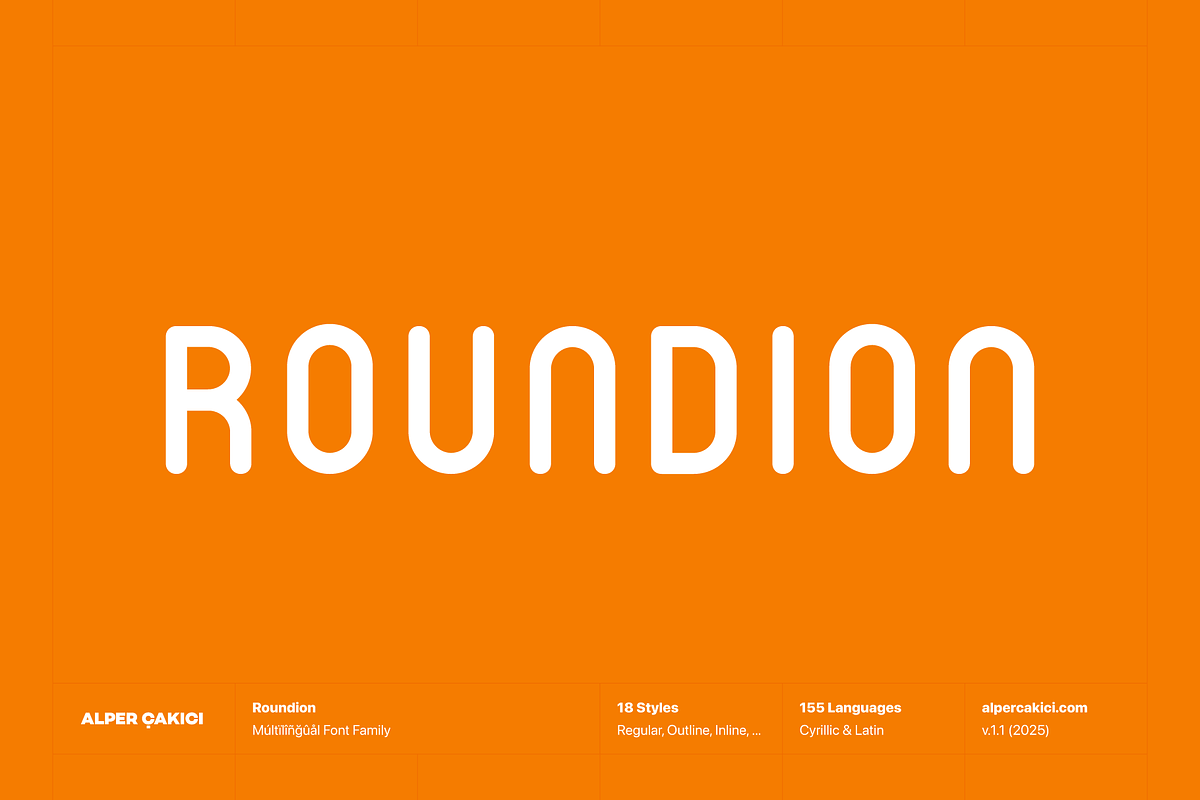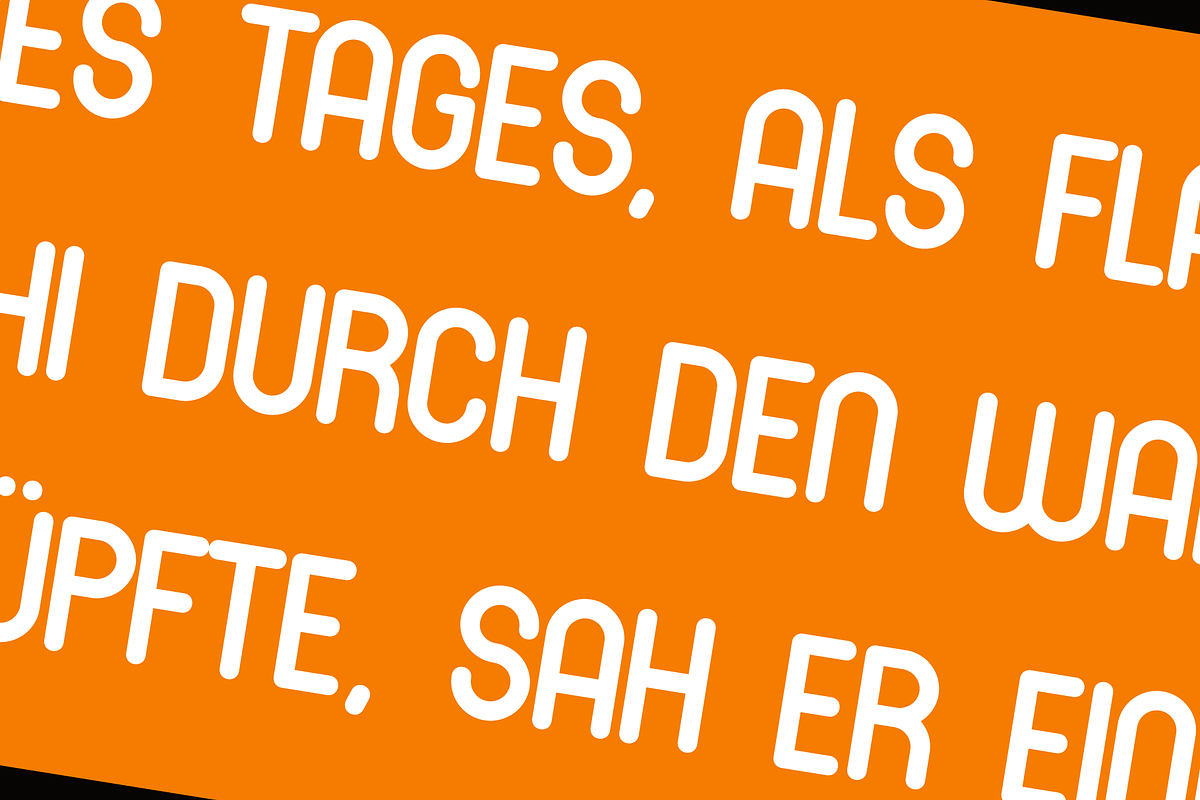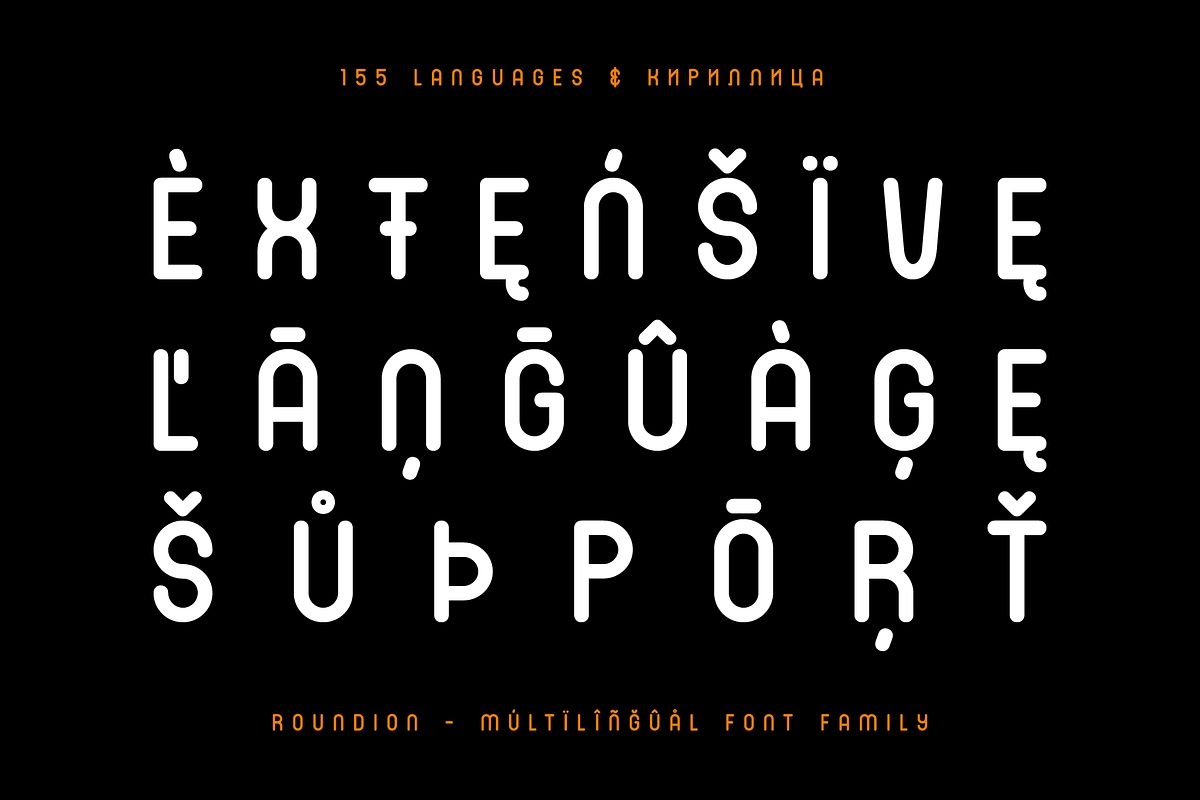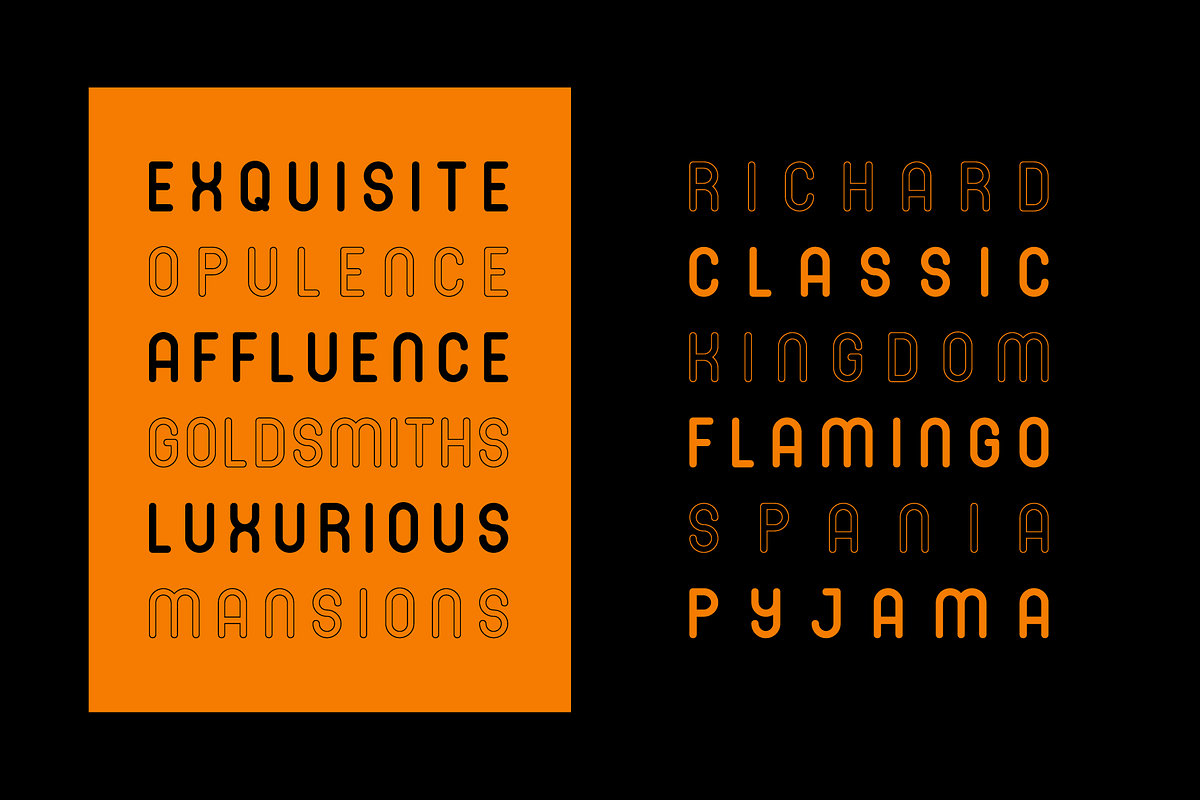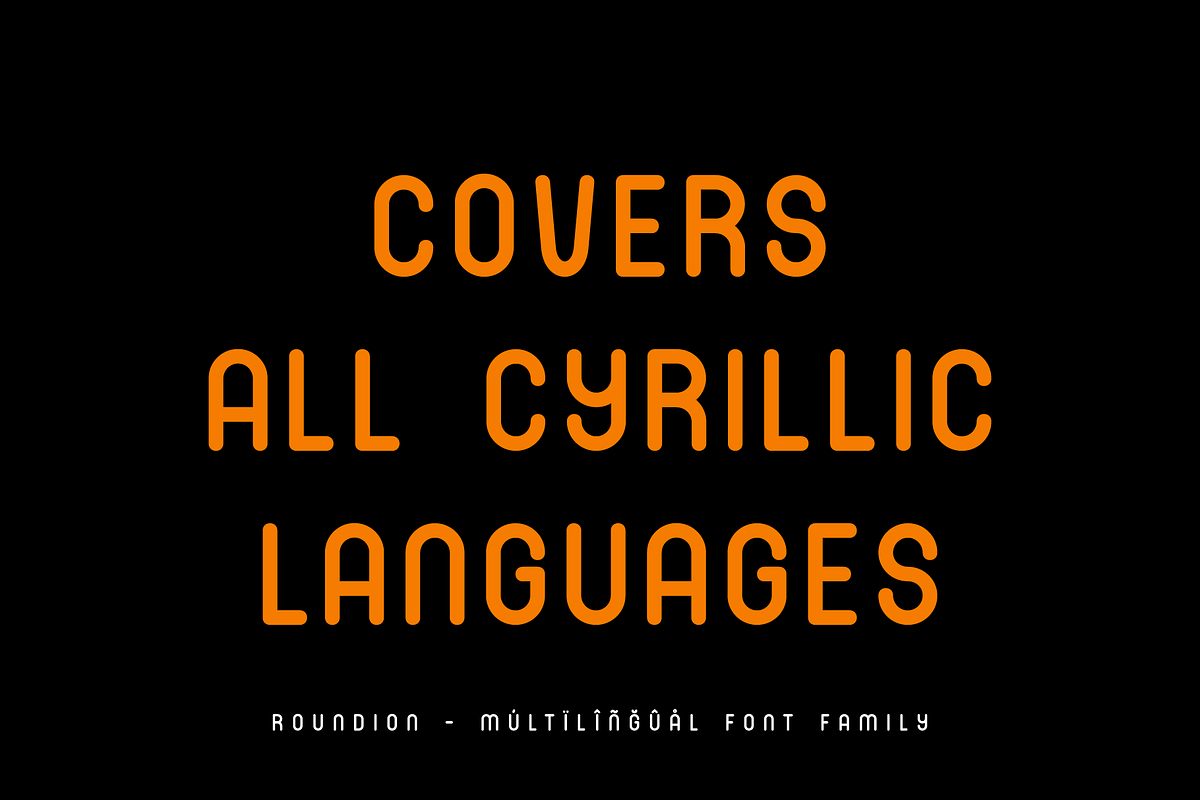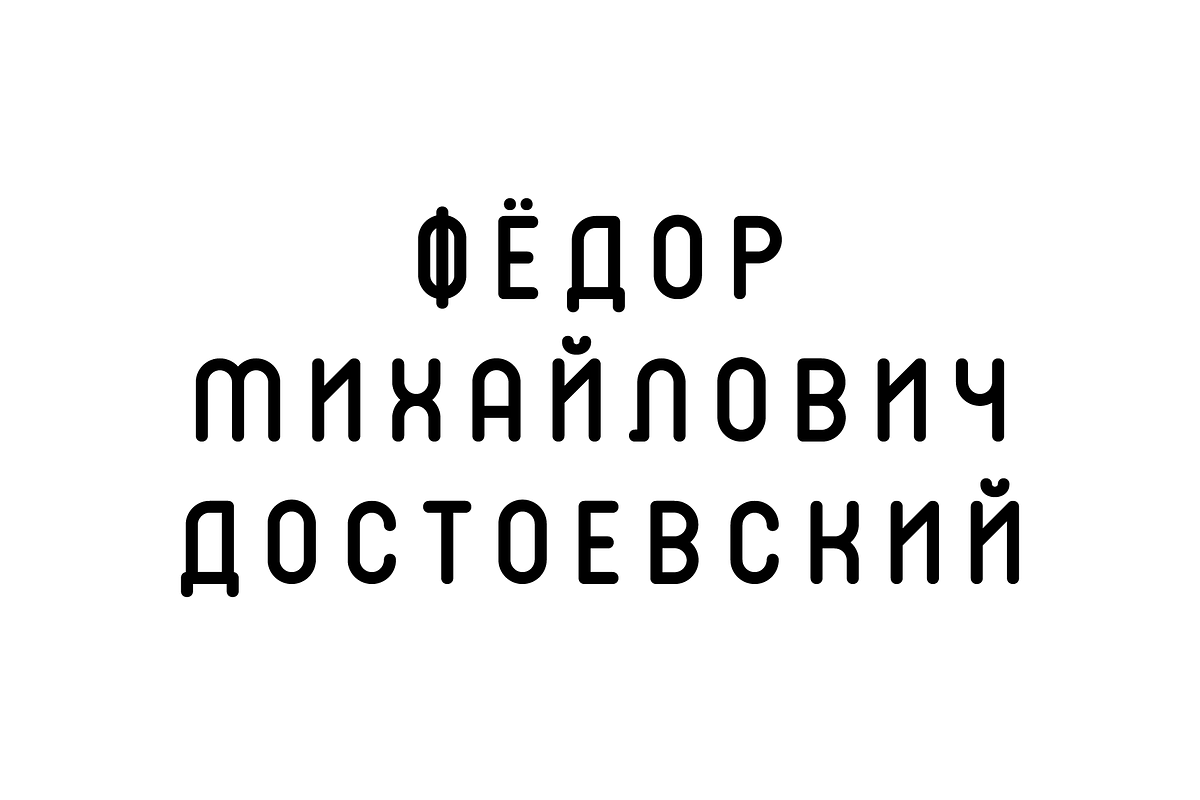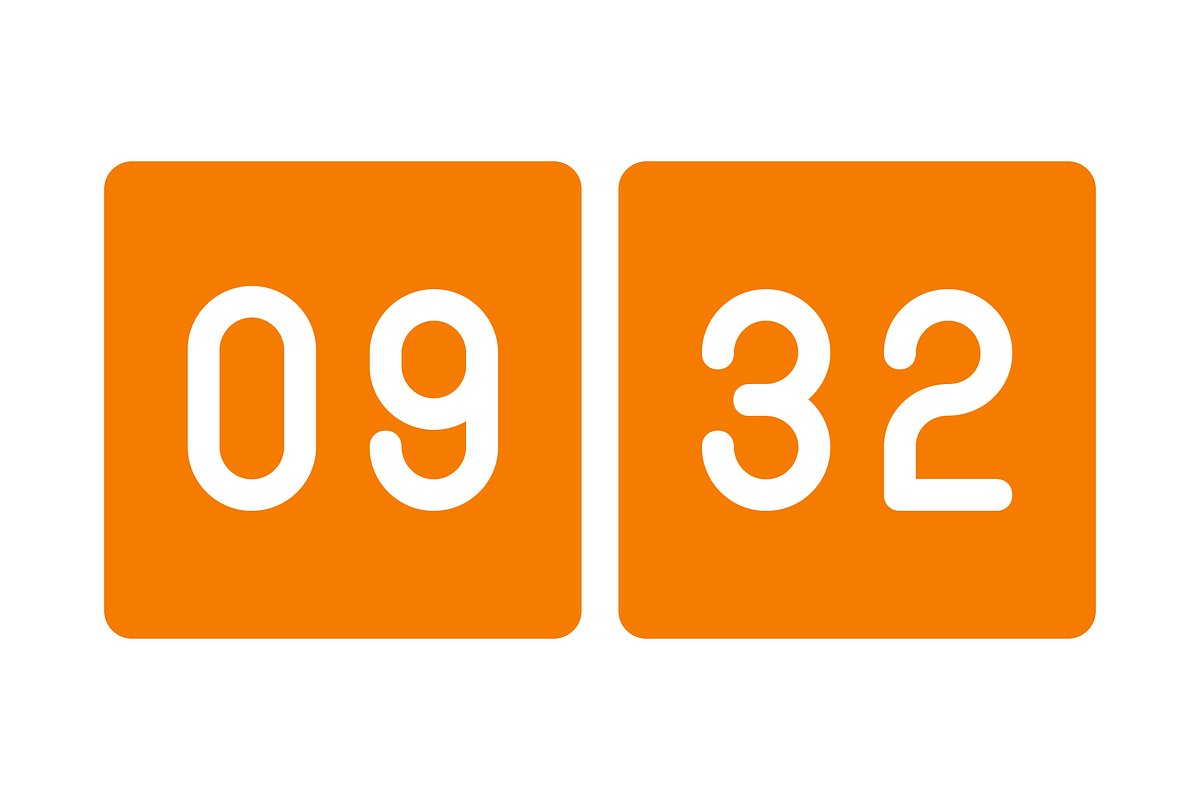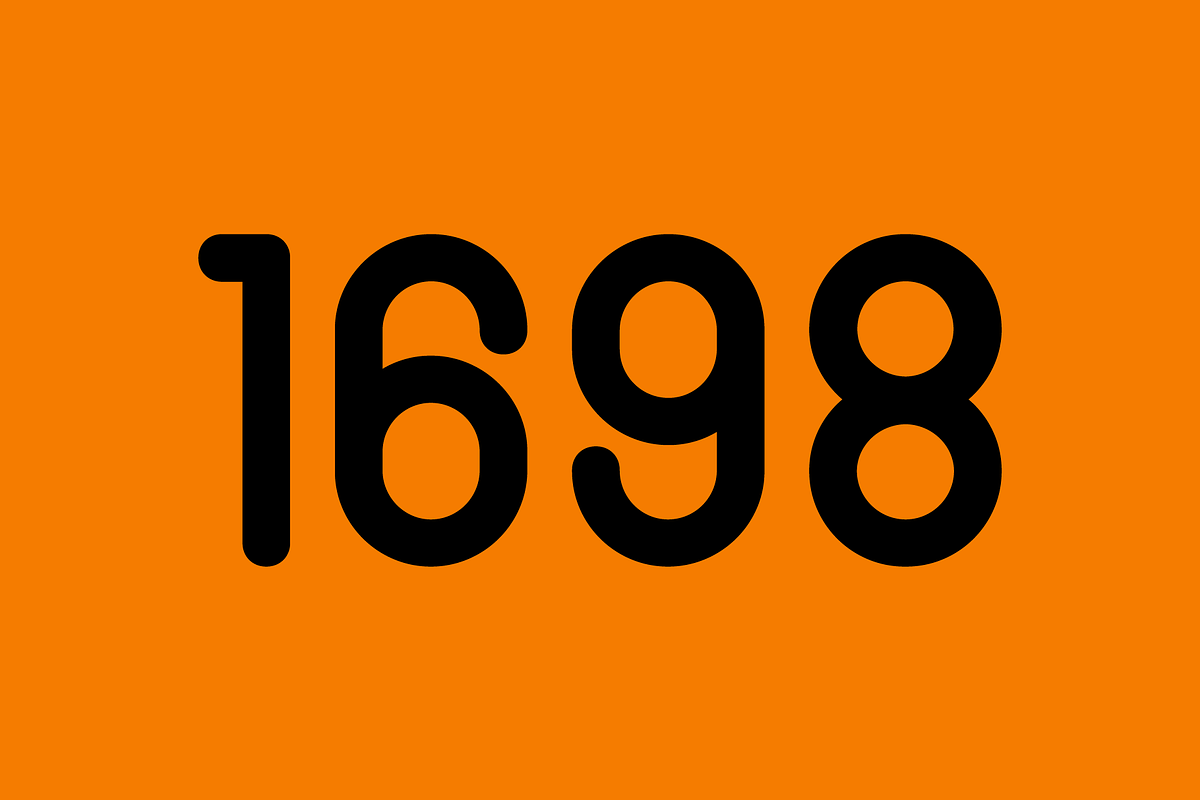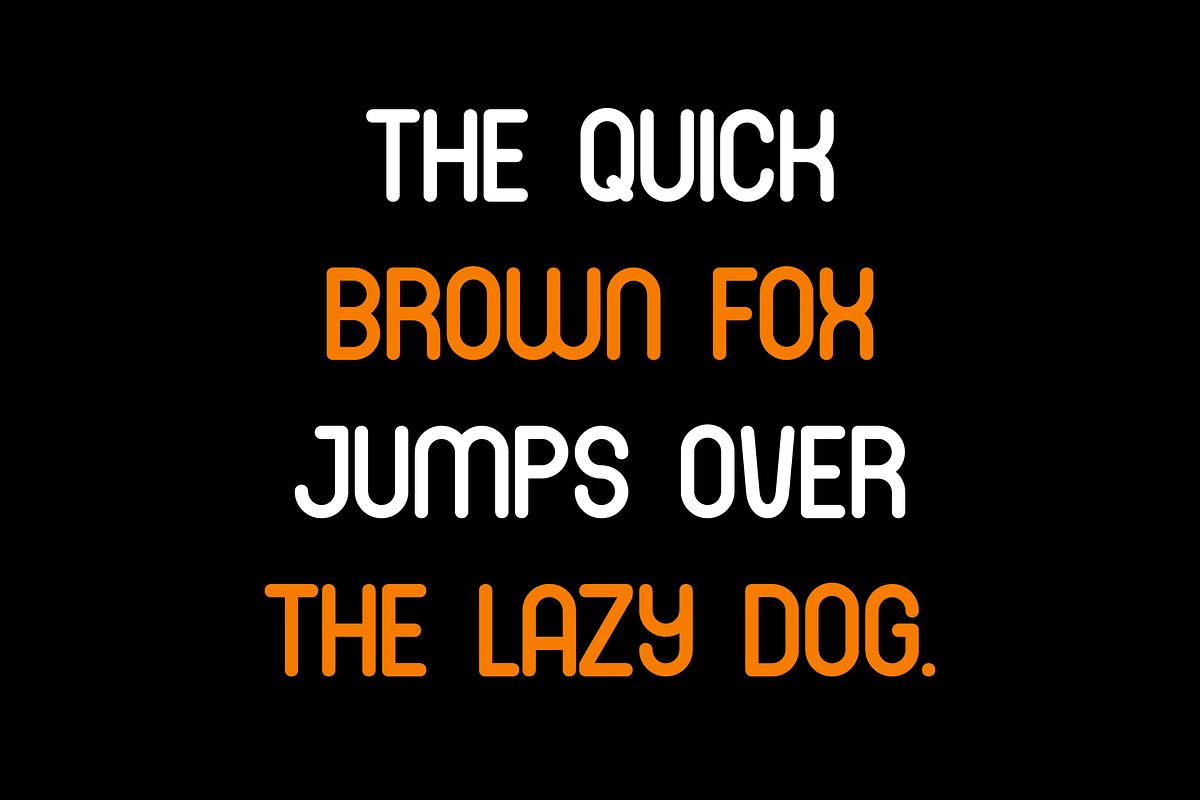
Roundion Cyrillic Font Family
Meet Roundion—a playful, modern rounded font family created for bold brands and creative projects.
With 18 styles, including Angular, Brush, Contour, Edge, Inline, Outline, Rimmed, Stroke, and their corresponding italics, Roundion makes it easy to design eye-catching titles, logos, packaging, and digital layouts.
Its smooth curves and clean shapes bring a friendly, approachable feel to any project, while its full Cyrillic support makes it ideal for multilingual design. From soft and rounded to sharp and expressive, Roundion offers a wide range of creative possibilities without ever losing its unique character.
A perfect choice for designers who want a single font family that can truly do it all—fun, flexible, and beautifully rounded.